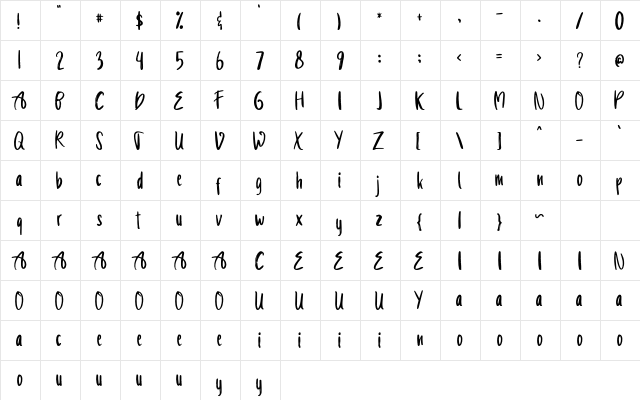
Hommy You Regular
| Foundry | Alghul Creative |
| Designer | Alghul Creative |
Design Context for Hommy You Typeface
Hommy You takes a measured approach to typography — its balanced proportions and neutral character make it a reliable workhorse for both digital and print work.